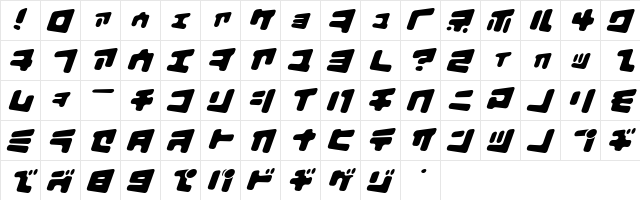
I2Biscuink L
Design Context for I2Biscui�nk Typeface
I2Biscui�nk is a composed and adaptable typeface that performs quietly and consistently across a wide range of design contexts.